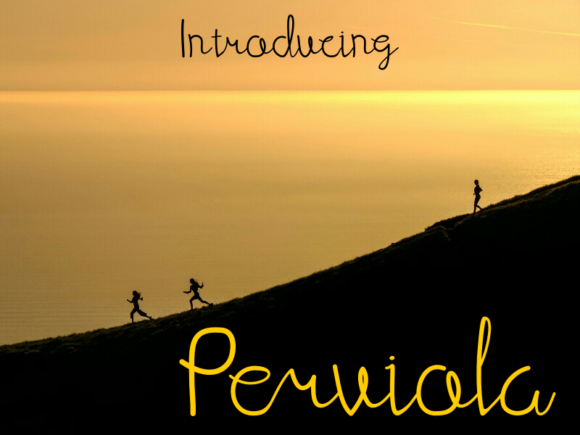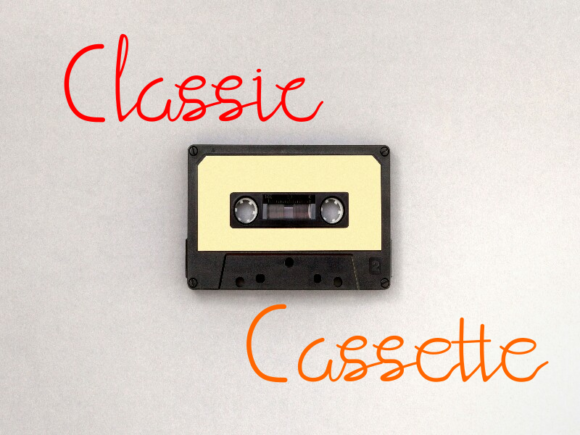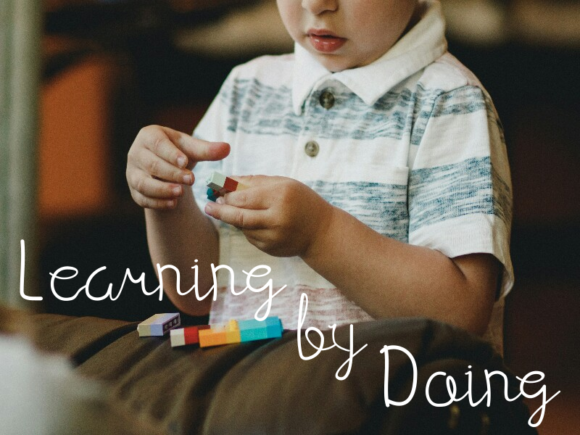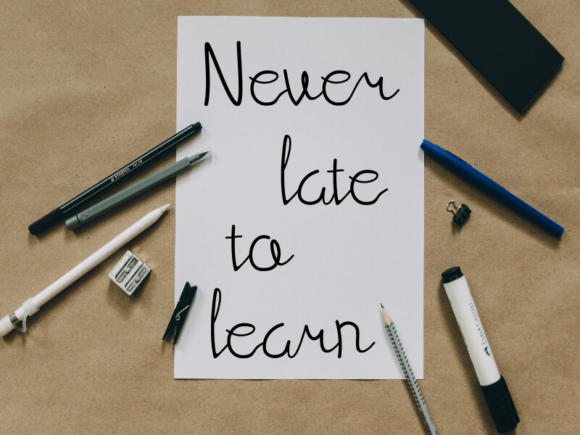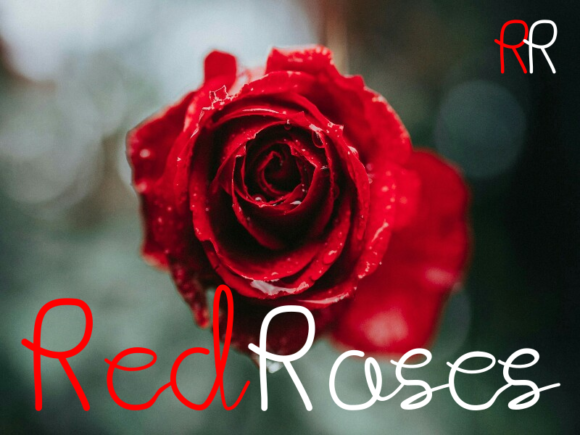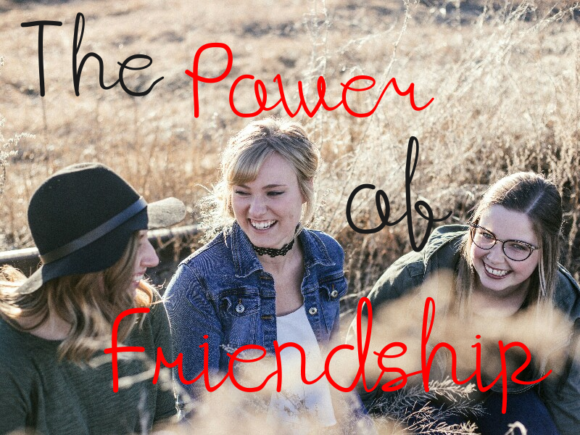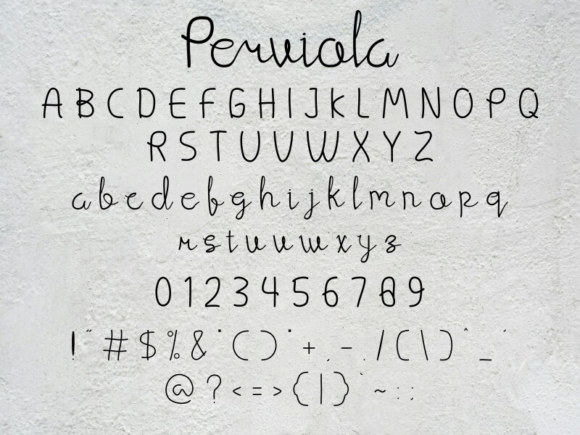
Perviola Font
About Perviola Font
Perviola is a classic and elegant handwritten font with a cool twist. It will add a casual, yet charming feel to any crafting idea!